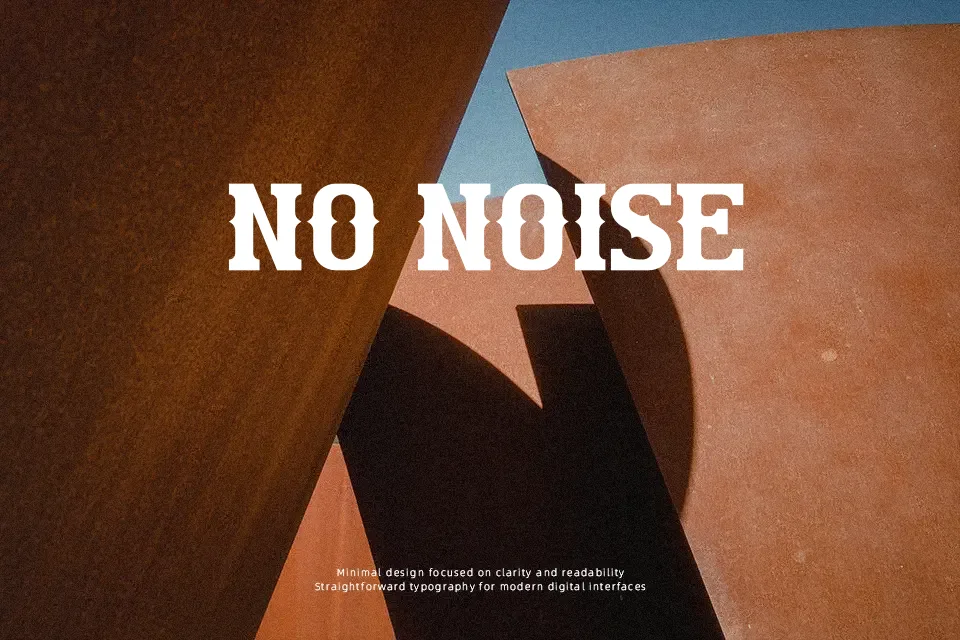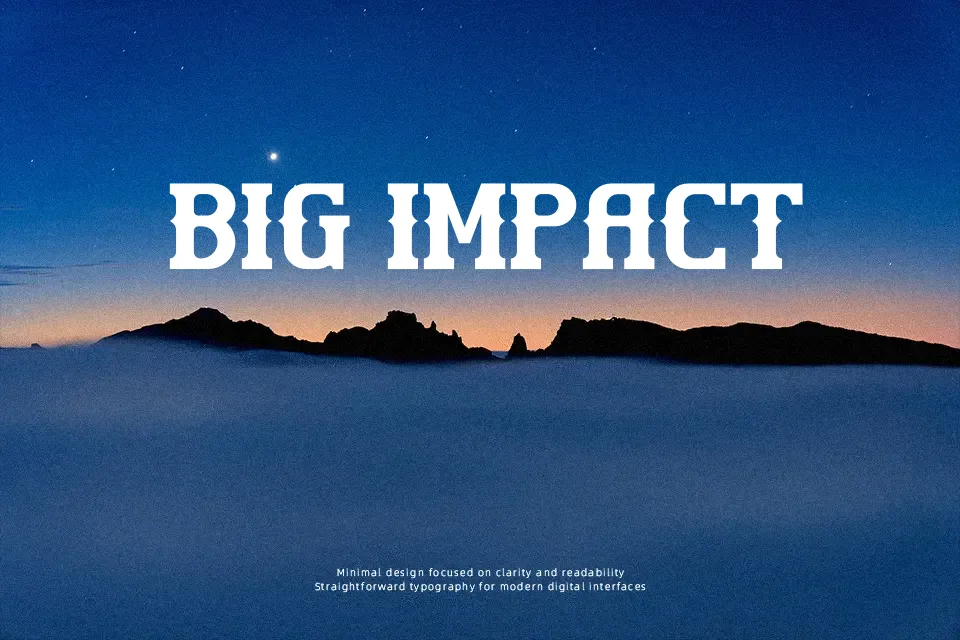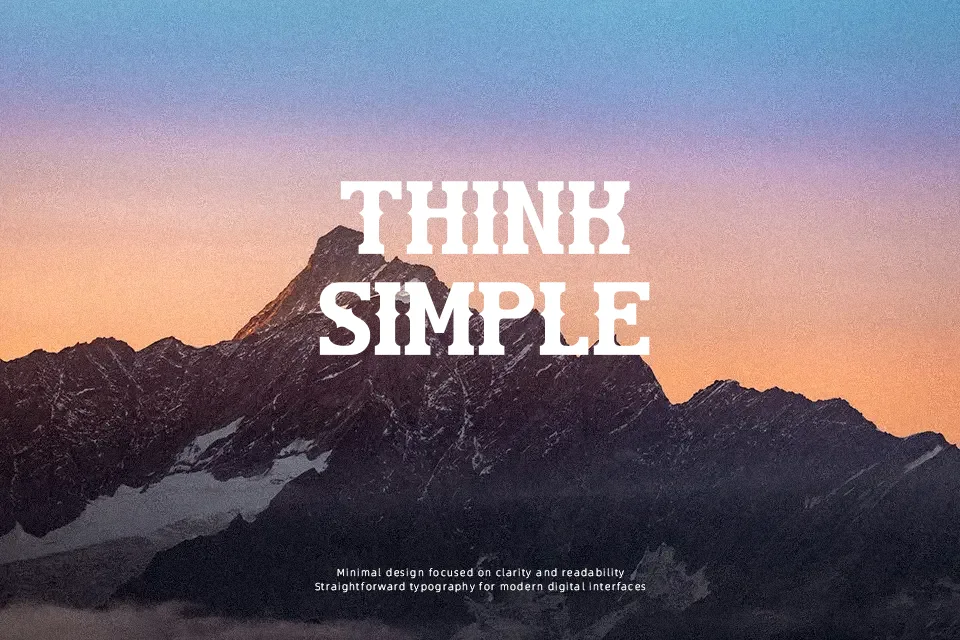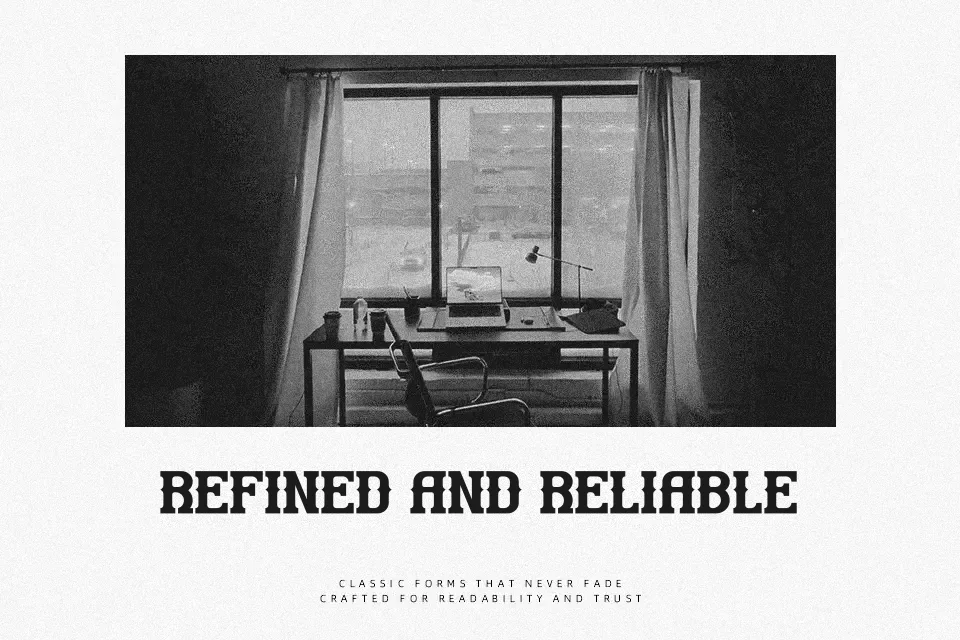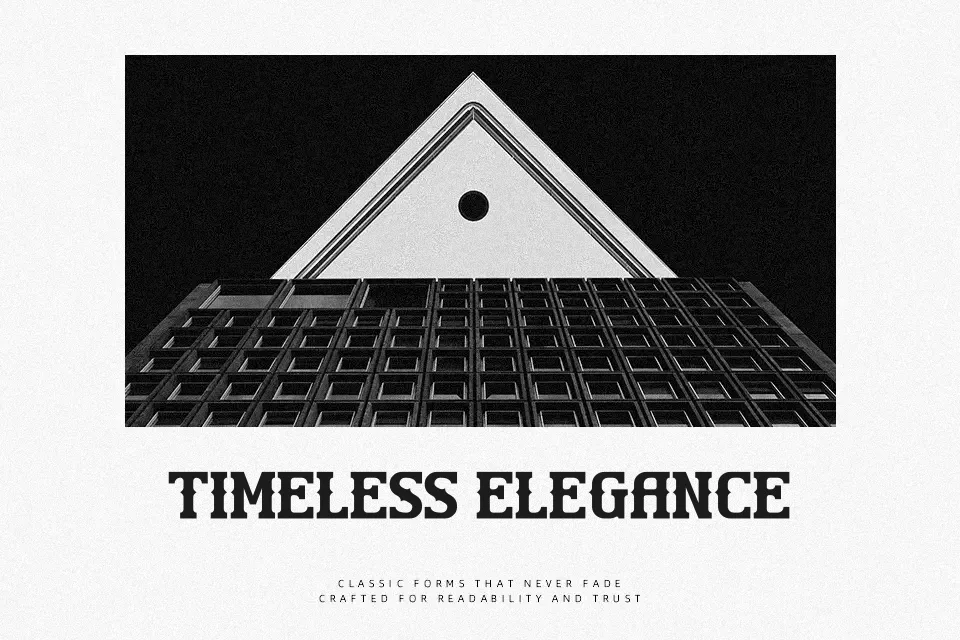
Submarine Font
Submarine Font showcases an assertive display serif construction defined by sharp spur details, moderate stroke contrast, and robust vertical stems. Medium character widths combine with disciplined spacing to establish a steady rhythmic cadence across large text blocks. The uppercase letterforms carry sculpted terminal treatments that maintain crisp definition at prominent display scales, providing strong visual authority for magazine covers, cinematic posters, and packaging graphics. However, the prominent decorative spurs and dense counters make the typeface less suitable for continuous body paragraphs, where reduced point sizes cause visual clutter. In practical application, the design excels when set as isolated titling.
Best For: editorial headlines, cinematic posters, luxury product packaging, boutique signage
Not Ideal For: long paragraph text, small interface labels, dense legal documents, technical manuals
Perfect for fashion, headline, and logo, with a bold and decorative style.